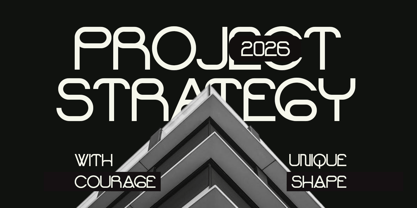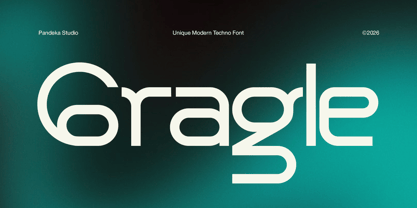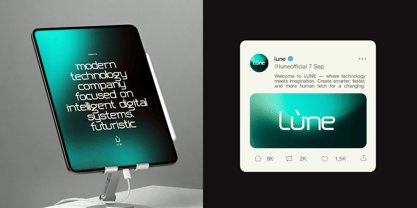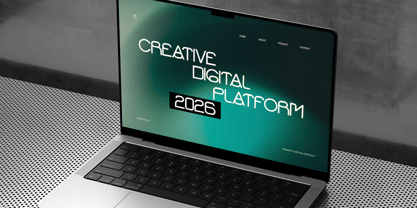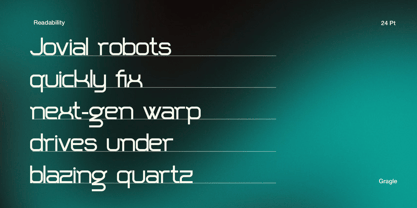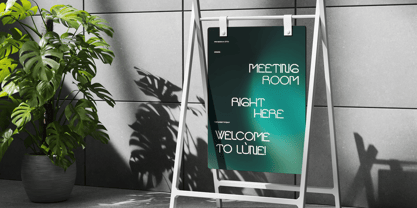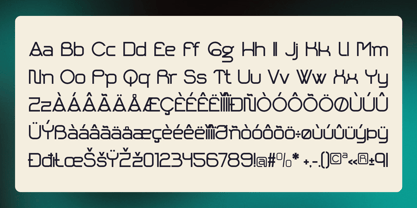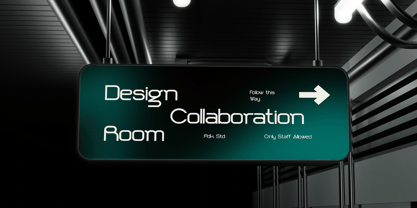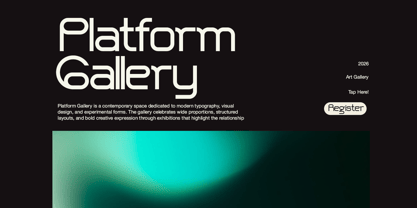
Gragle
by Pandeka Studio
The Gragle Font Family was designed by Sagara Nararya and published by Pandeka Studio. Gragle contains 1 styles. More about this family
Gragle is a modern techno display font crafted with sleek geometric construction, futuristic curves, and clean digital aesthetics. Its unique letterforms create a strong high-tech atmosphere, making it perfect for technology branding, gaming visuals, digital interfaces, futuristic posters, and modern creative projects.
Designed in 1 versatile Regular style, Gragle delivers a bold and contemporary presence while maintaining excellent readability. Whether you're building a tech startup identity, UI design, esports branding, social media graphics, or futuristic editorial layouts, Gragle adds a sharp, innovative, and cutting-edge visual character to your work.